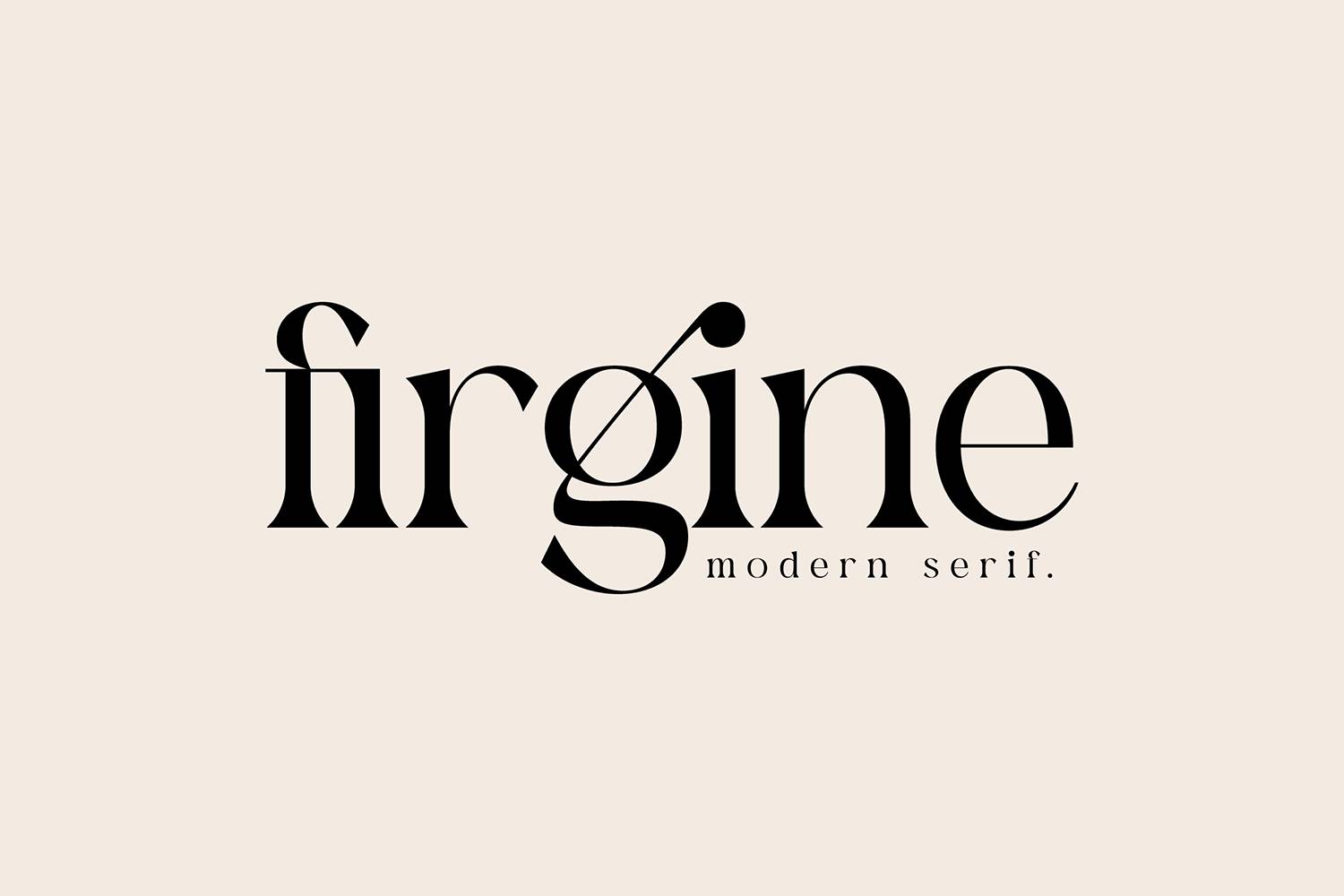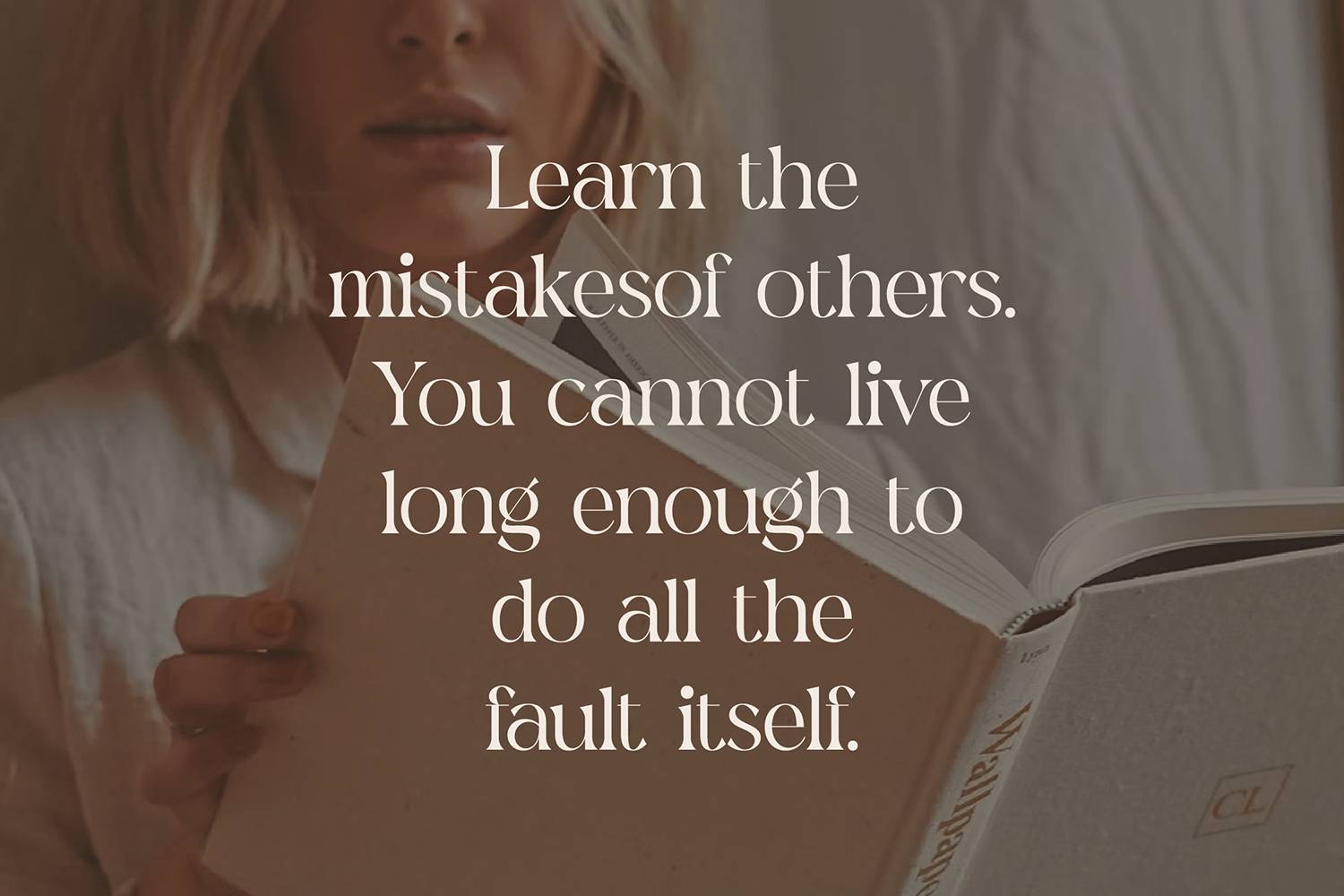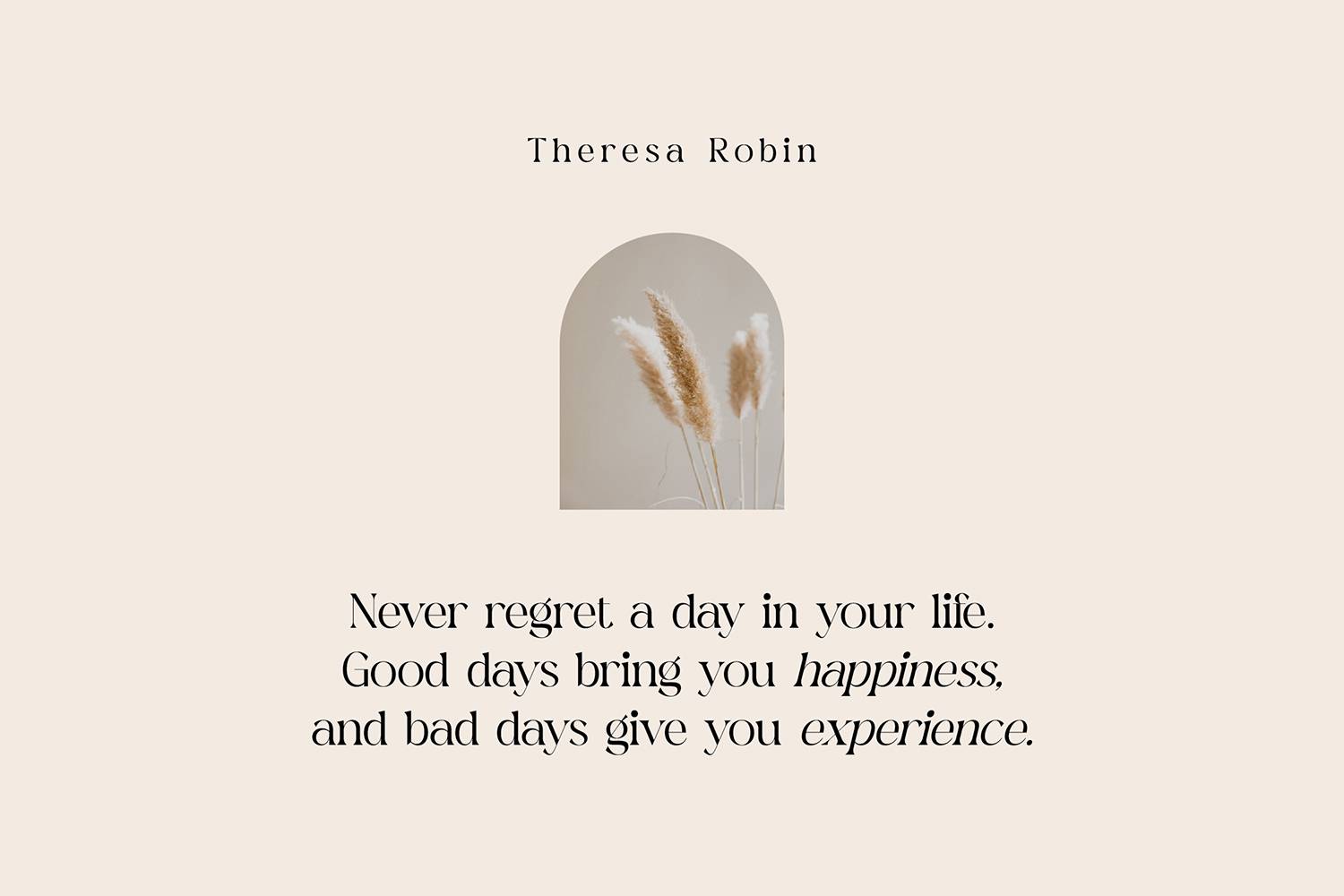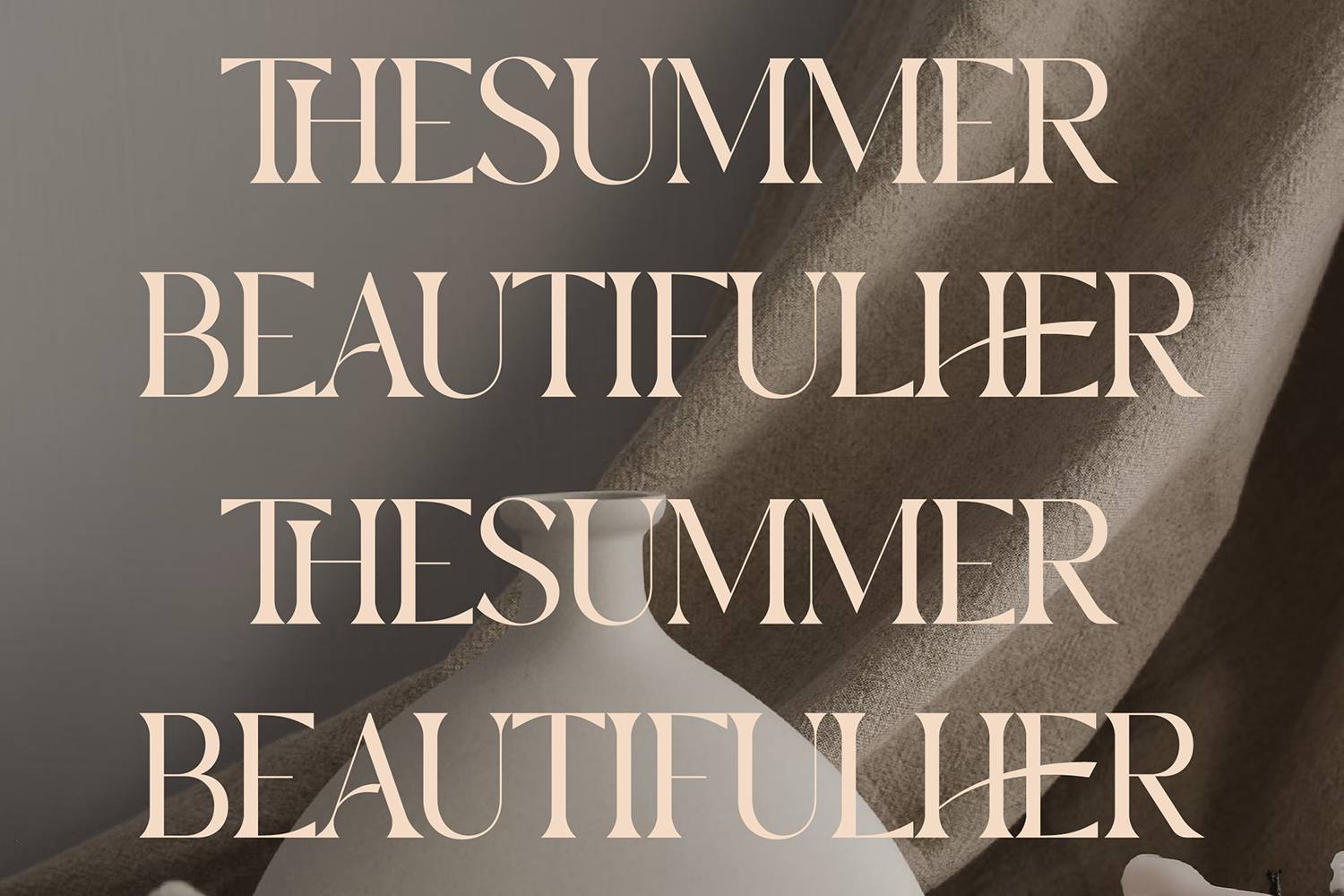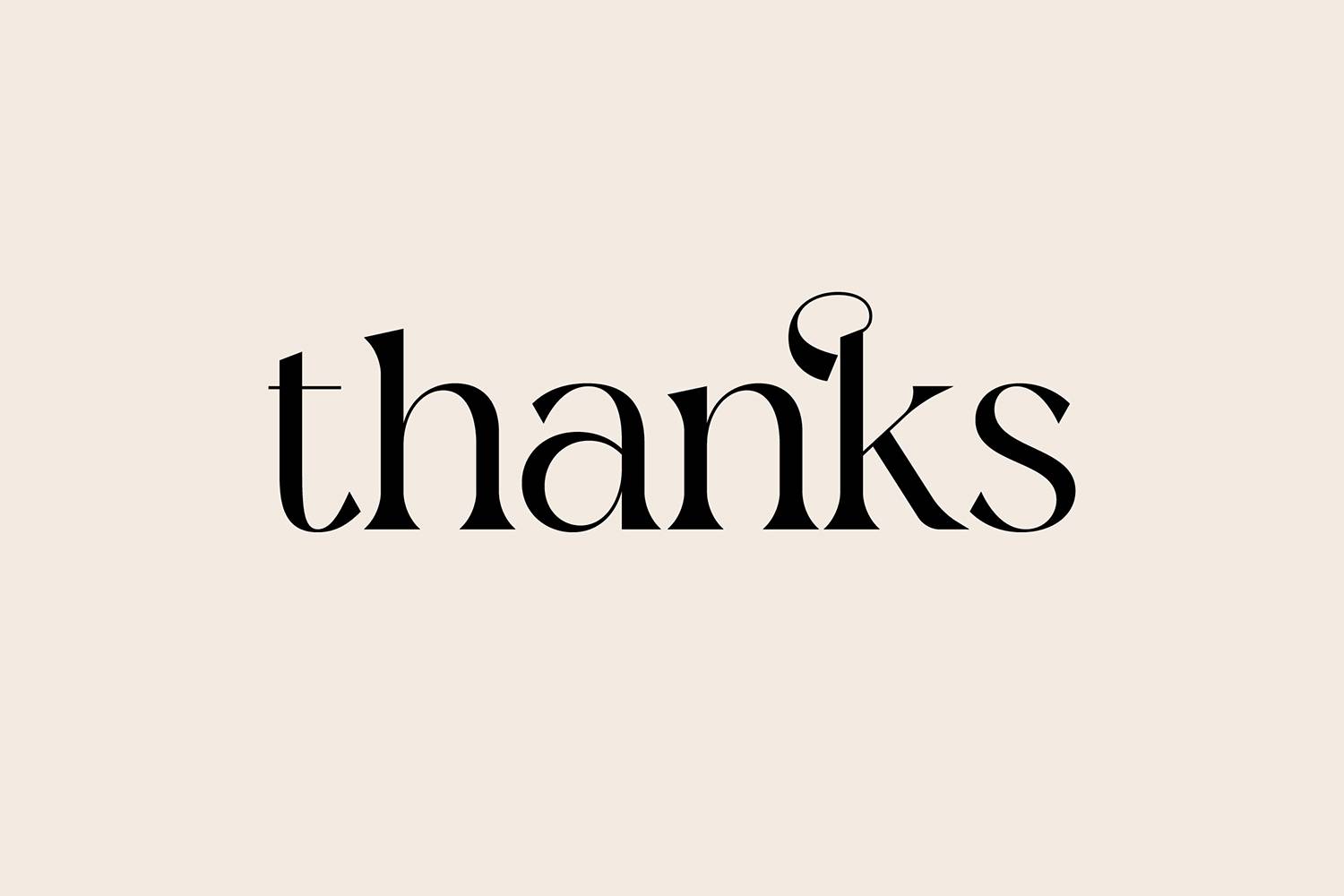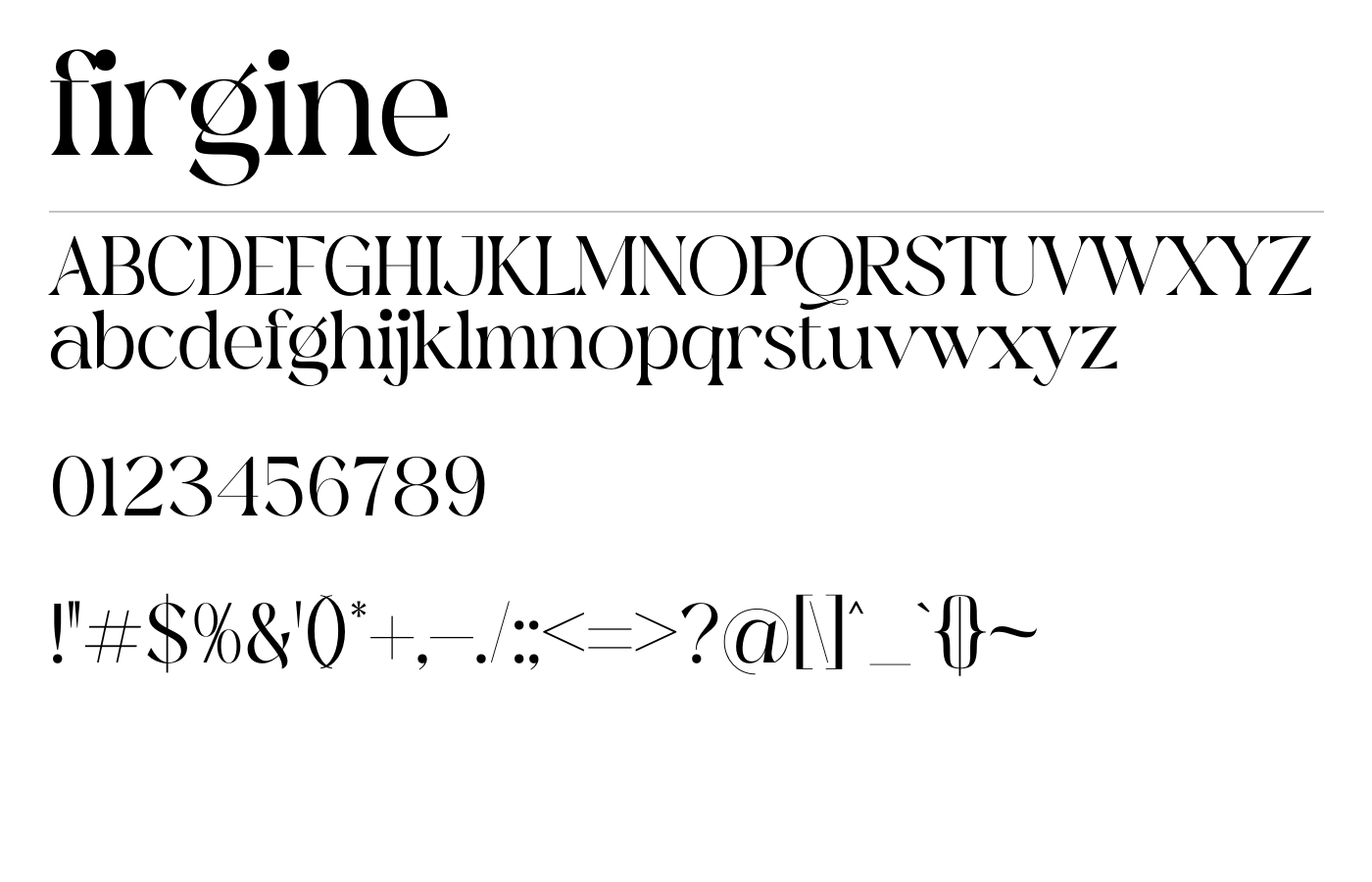
Firgine is a sophisticated serif font with high contrast between thick and thin strokes, featuring elegant, sharp serifs and refined letterforms that convey a modern yet timeless luxury feel. Its distinctive details, such as unique terminals and a graceful ampersand, make it perfect for upscale branding, editorial headlines, and fashion packaging where style and refinement are key. This font balances artistic flair with readability, lending a polished, high-end look to any design.
Firgine Font